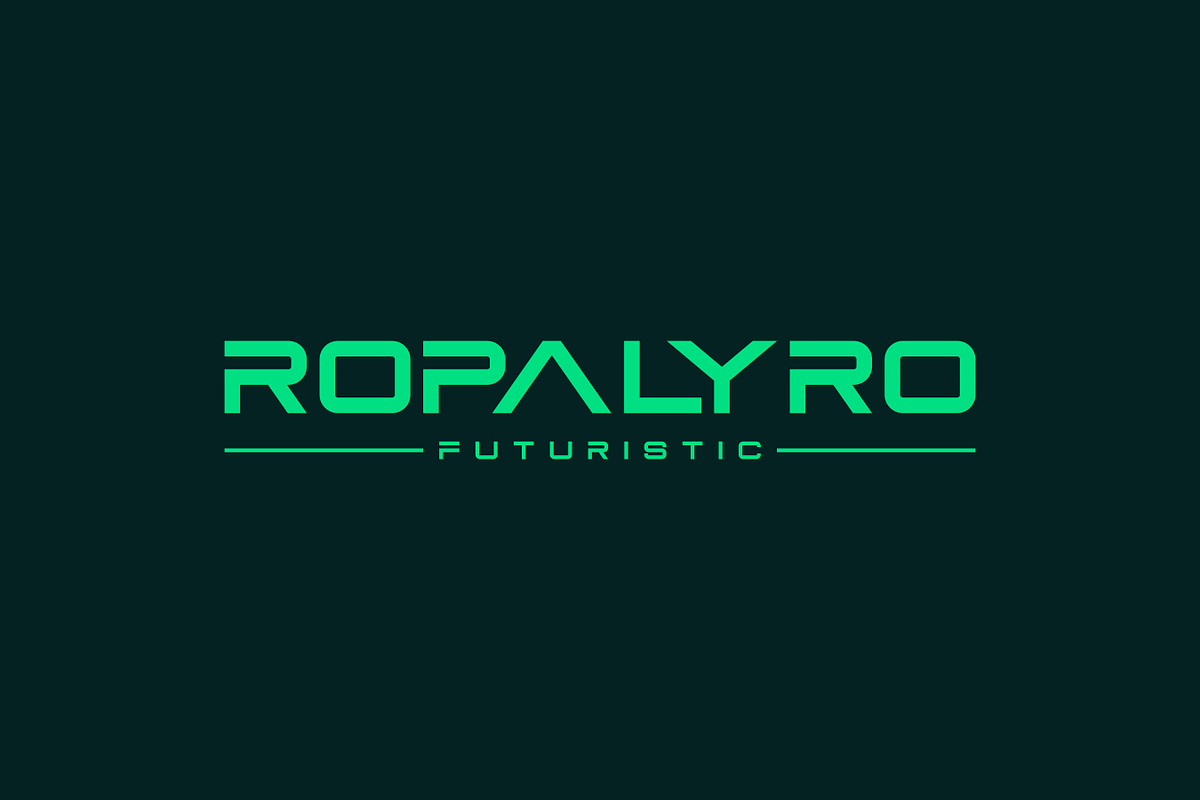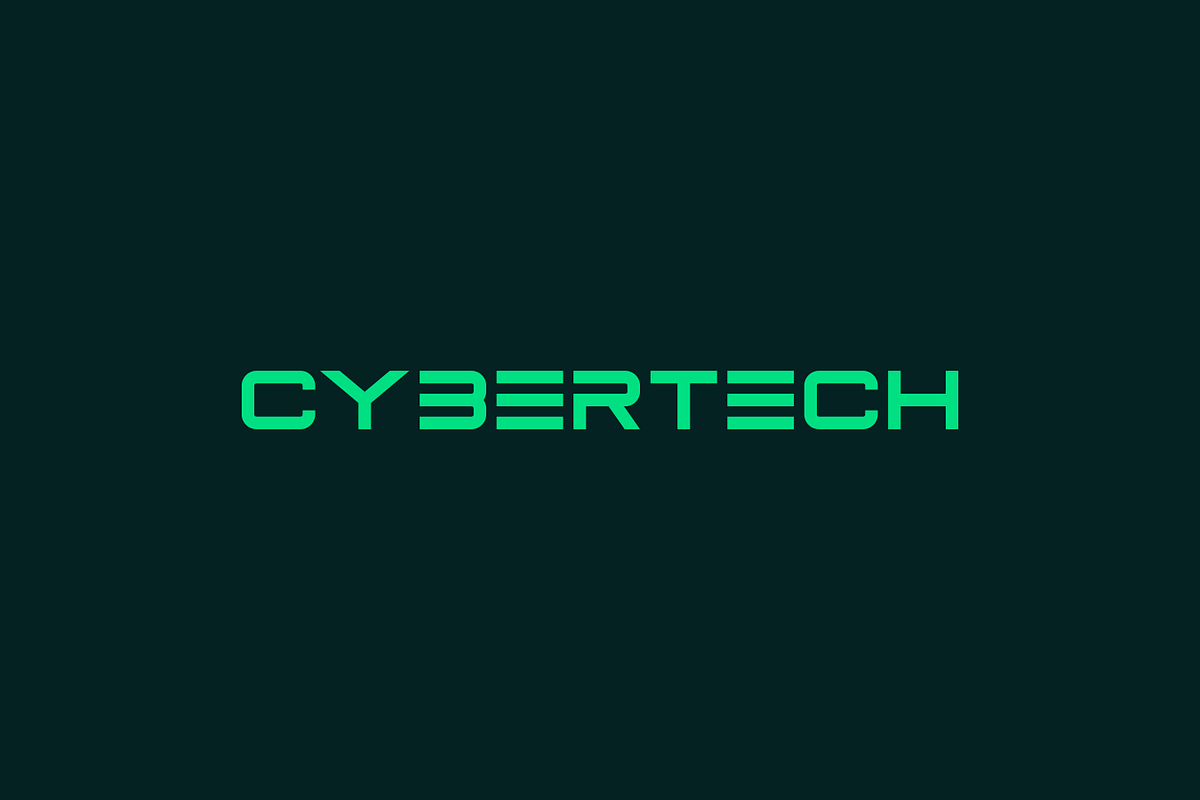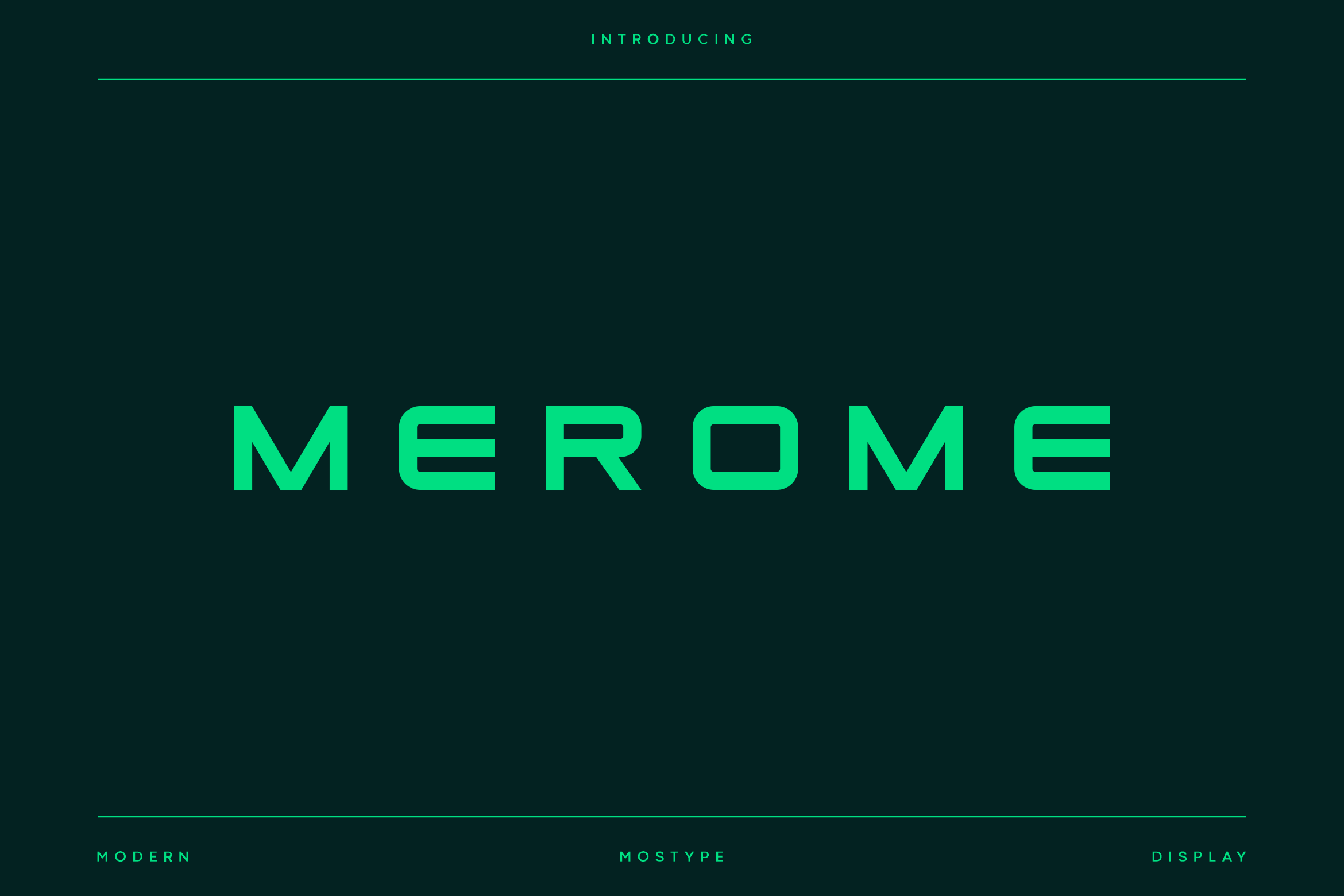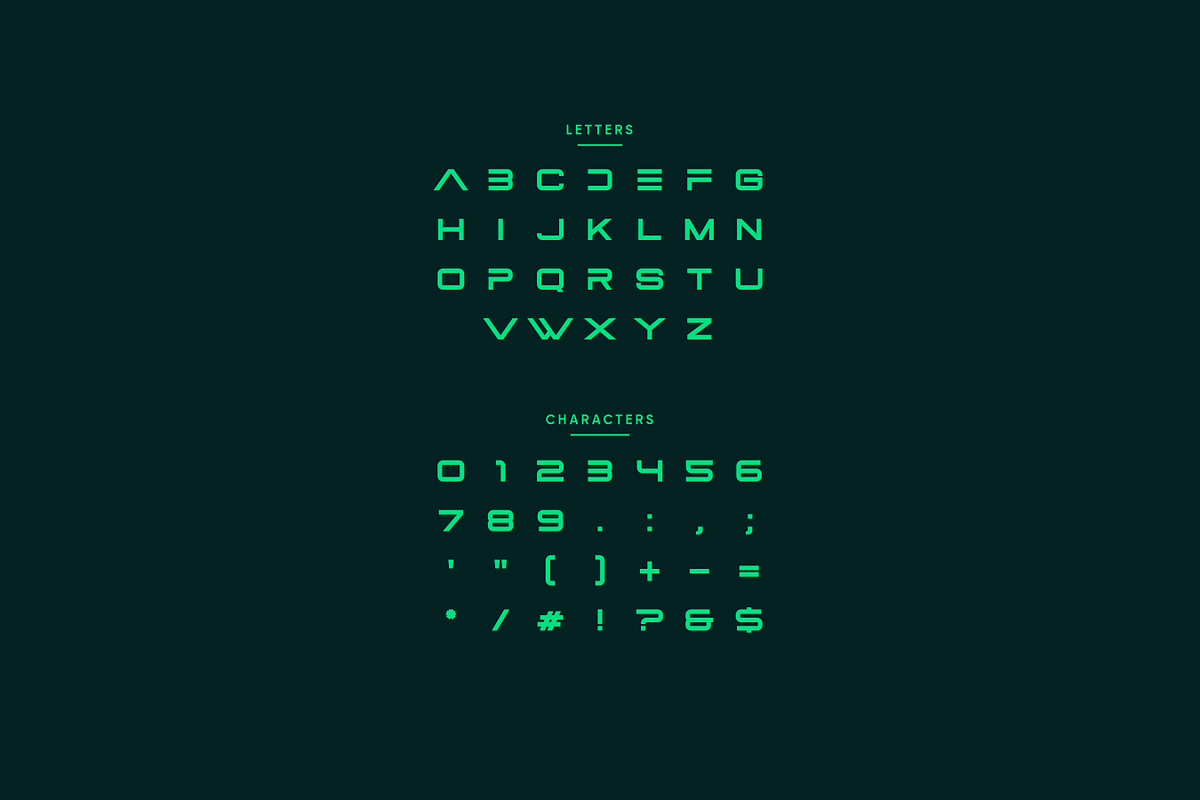
Merome - Modern Display Typeface
Merome is a unique all-caps based font that will make your design look futuristic and modern, using a simple design to make it look clean and elegant. You can use this font for any purpose, especially for creating future designs. This font would be great for logo designs, posters, magazines, headlines and many other designs, it's a very sophisticated font that will make your designs stand out!